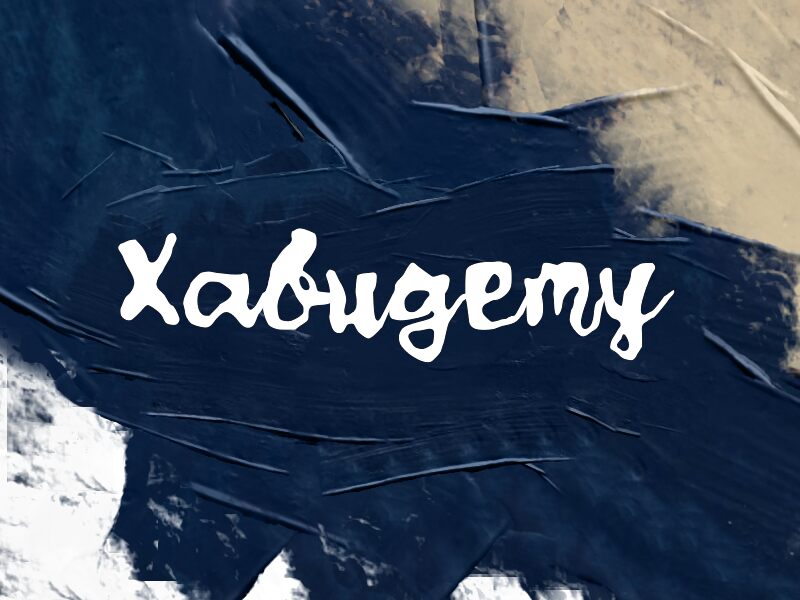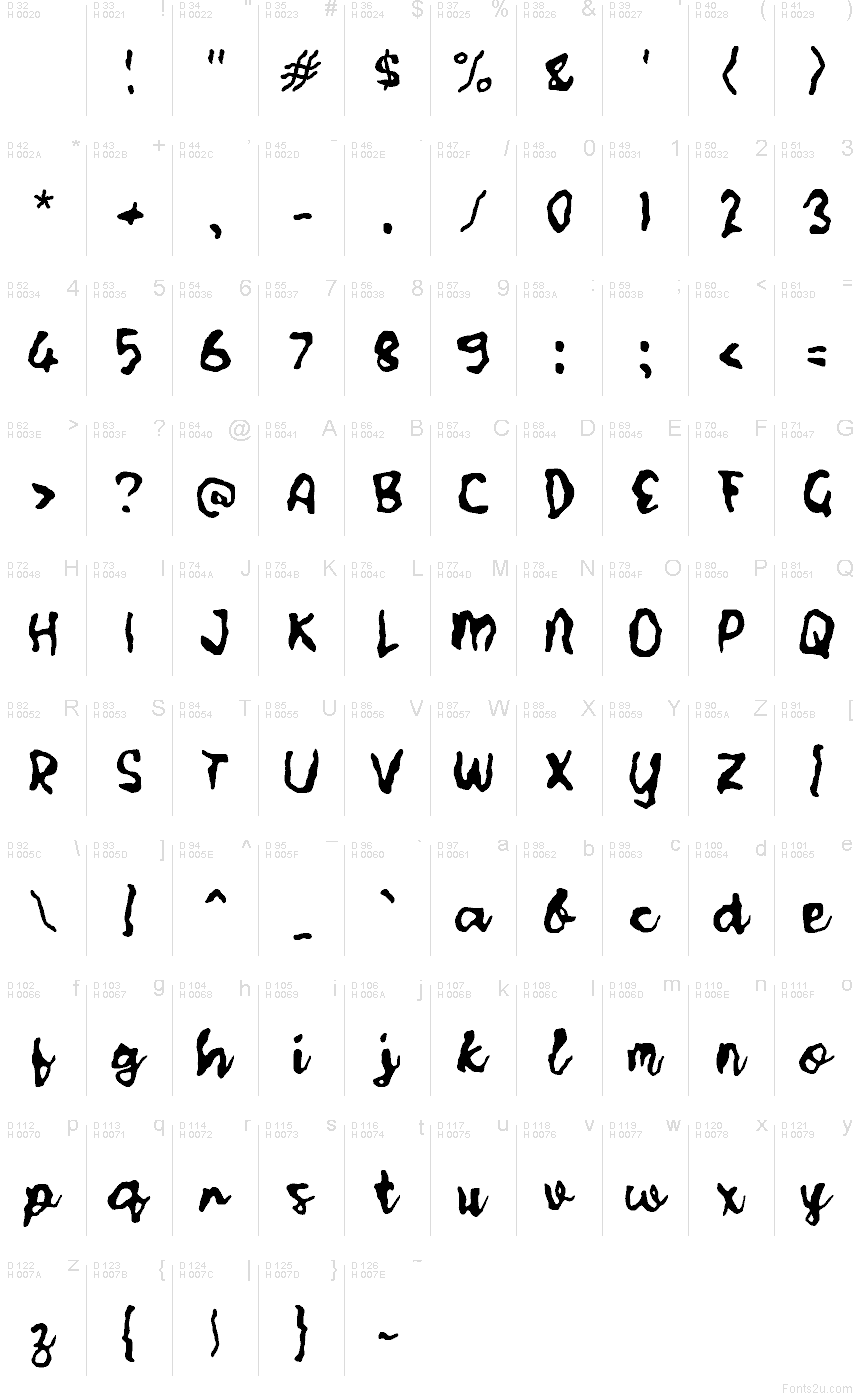
Xabugemy
Xabugemy font by wepfont.com is a free brush font that looks like it’s been painted in thick, slightly sticky ink. Its rounded, loopy strokes wobble just enough to feel human and unpolished, with bold black shapes that cling together like wet paint. The rhythm is loose and bouncy, giving headlines a scrappy, handmade energy that jumps off light or textured backgrounds.
Using Xabugemy, you get a lively, ink-brushed voice that shines on poster titles, YouTube thumbnails, stickers, kids’ book covers, craft packaging, and festival flyers. This free font works best big and bold, where its blobby edges and playful curves can breathe. Pair it with a simple geometric sans in smaller text to keep layouts readable while letting Xabugemy handle the attitude.